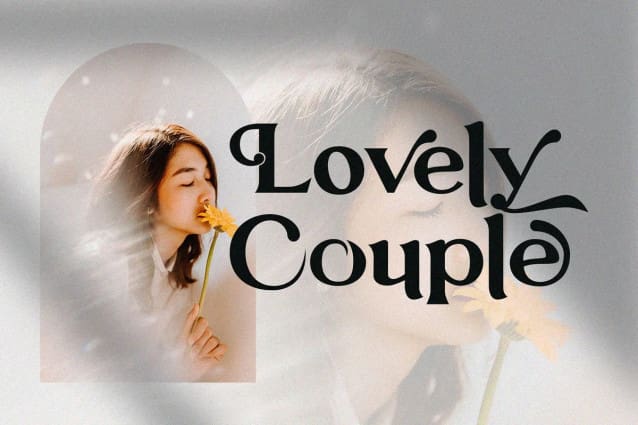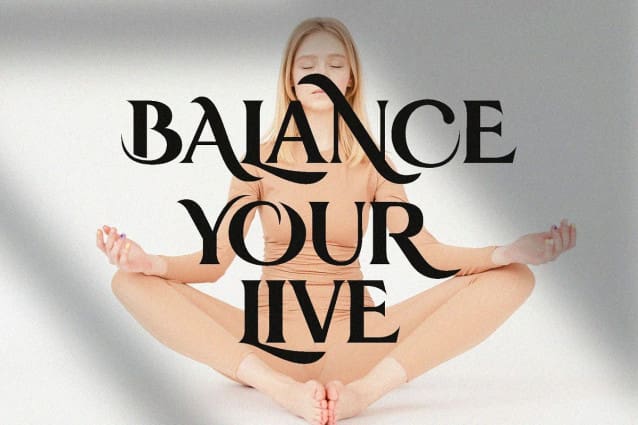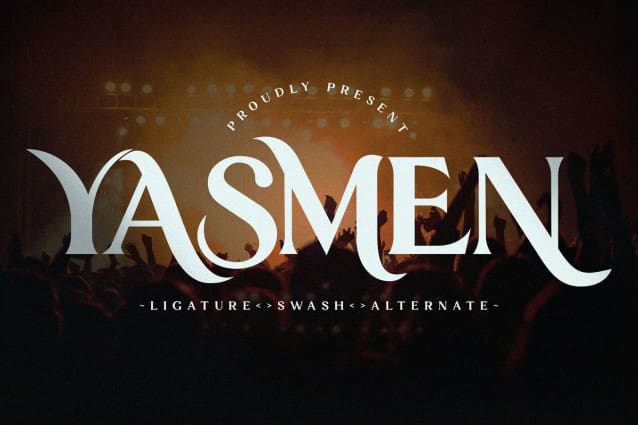
Yasmen Font
Yasmen Font, It looks amazing and is easy to read. Features OpenType, large selection of alternative glyphs, swashes and ligatures. So you can feel a new sensation in being creative in designing writing using this YasmenFont. It is a font that can be used for display titles, and other short texts and is perfect for advertising, social media, branding, logotypes, packaging, titles, editorial and modern designs.